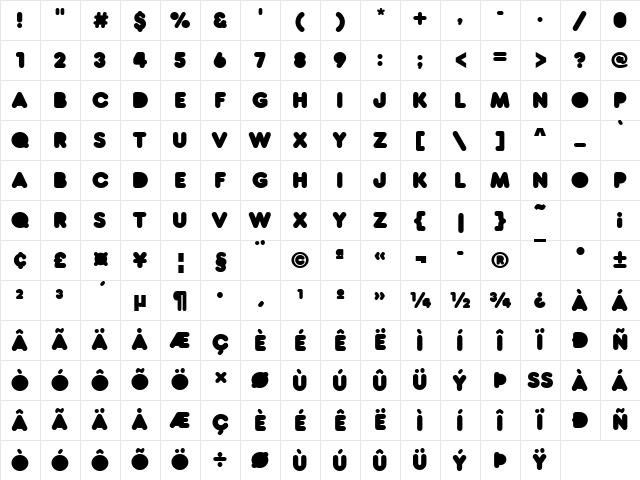
RNS  BARUTA BLACK Regular
Foundry: Yorlmar Campos
Designer: Yorlmar Campos
Design Context for RNS BARUTA BLACK
RNS BARUTA BLACK is a composed and adaptable typeface that performs quietly and consistently across a wide range of design contexts.
Who designed the RNS BARUTA BLACK Regular font?